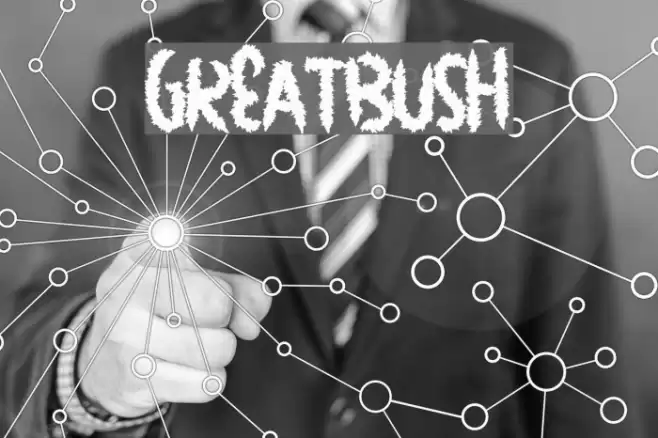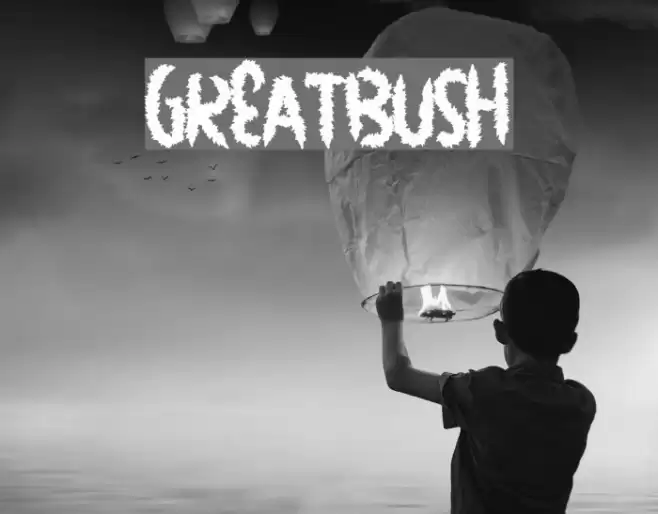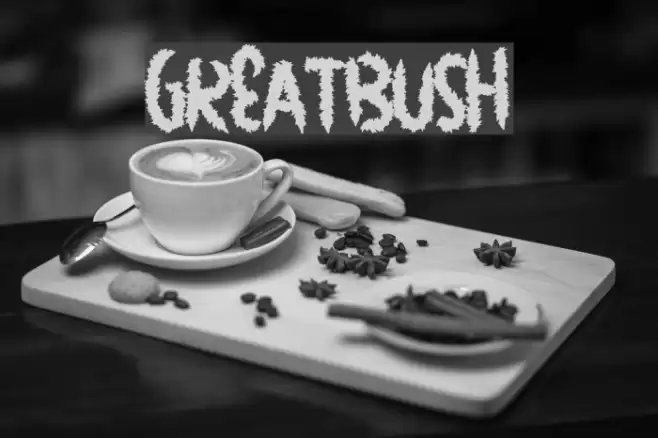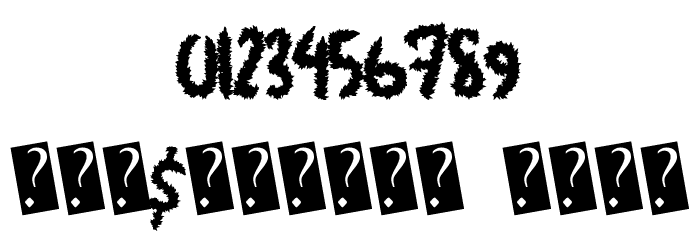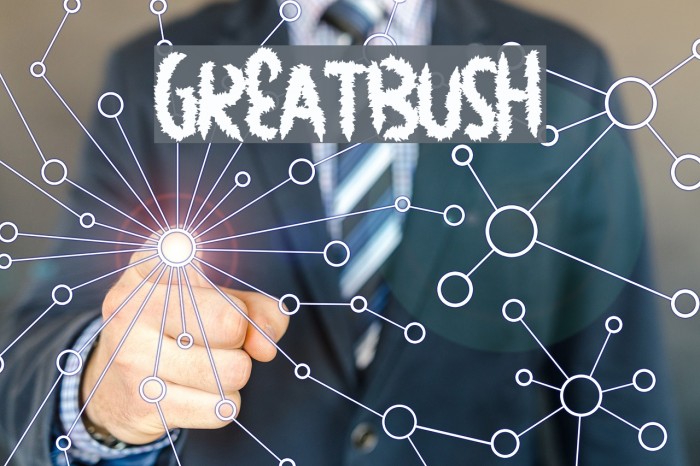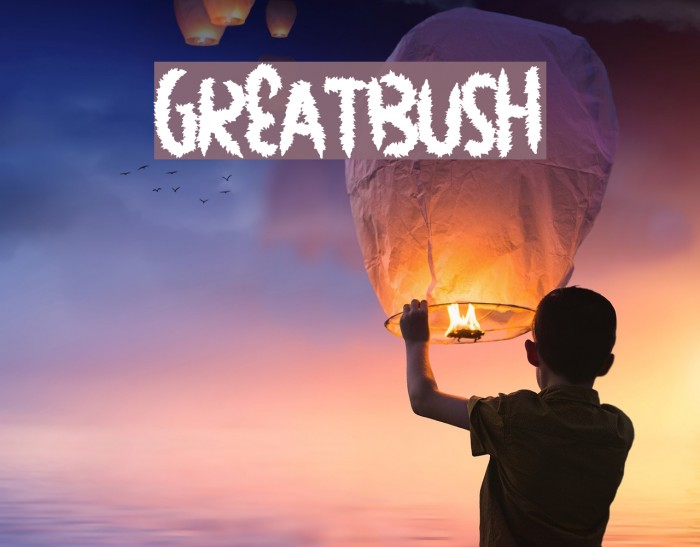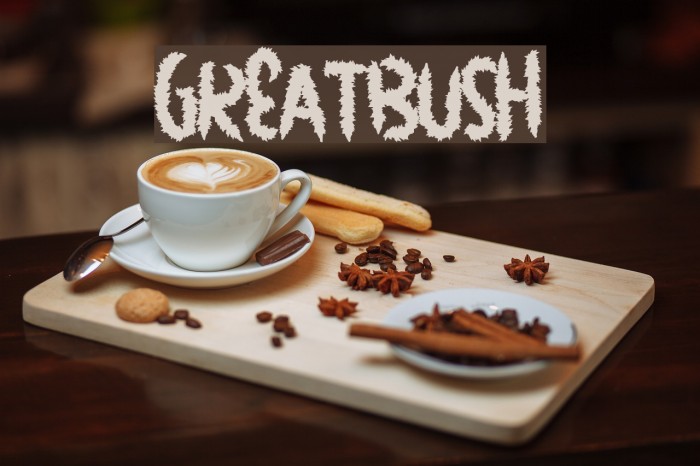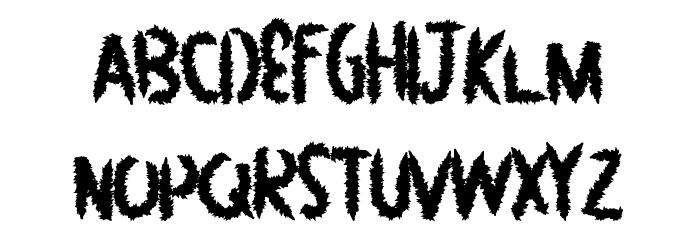
GreatBush Font
GreatBush Description
This font features a unique, jagged design that resembles the texture of bushy foliage or rough brush strokes. Each character is crafted with irregular edges, giving it a wild and untamed appearance. The uppercase and lowercase letters maintain this rugged style, creating a cohesive look throughout the alphabet. The numbers and special characters follow the same aesthetic, ensuring consistency. This font's distinctive style makes it stand out, offering a bold and artistic flair that captures attention.
A jagged, bushy font with a wild, untamed appearance from Uncategorized fonts.
- Proposed Projects: Ideal for projects that require a bold, artistic touch, such as posters, album covers, or branding for outdoor or adventure-themed businesses.